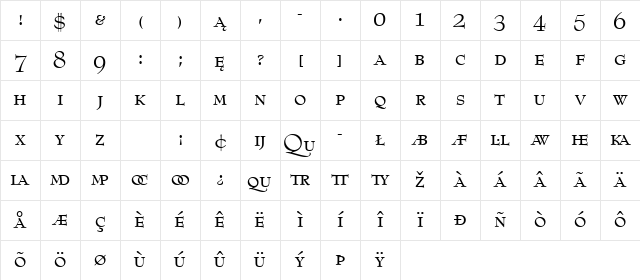
Complete BernhardMod SmCap BT Small Cap glyph index. Displaying only characters natively supported by BernhardMod SmCap BT Small Cap font.
BernhardMod SmCap BT is a composed and adaptable typeface that performs quietly and consistently across a wide range of design contexts.